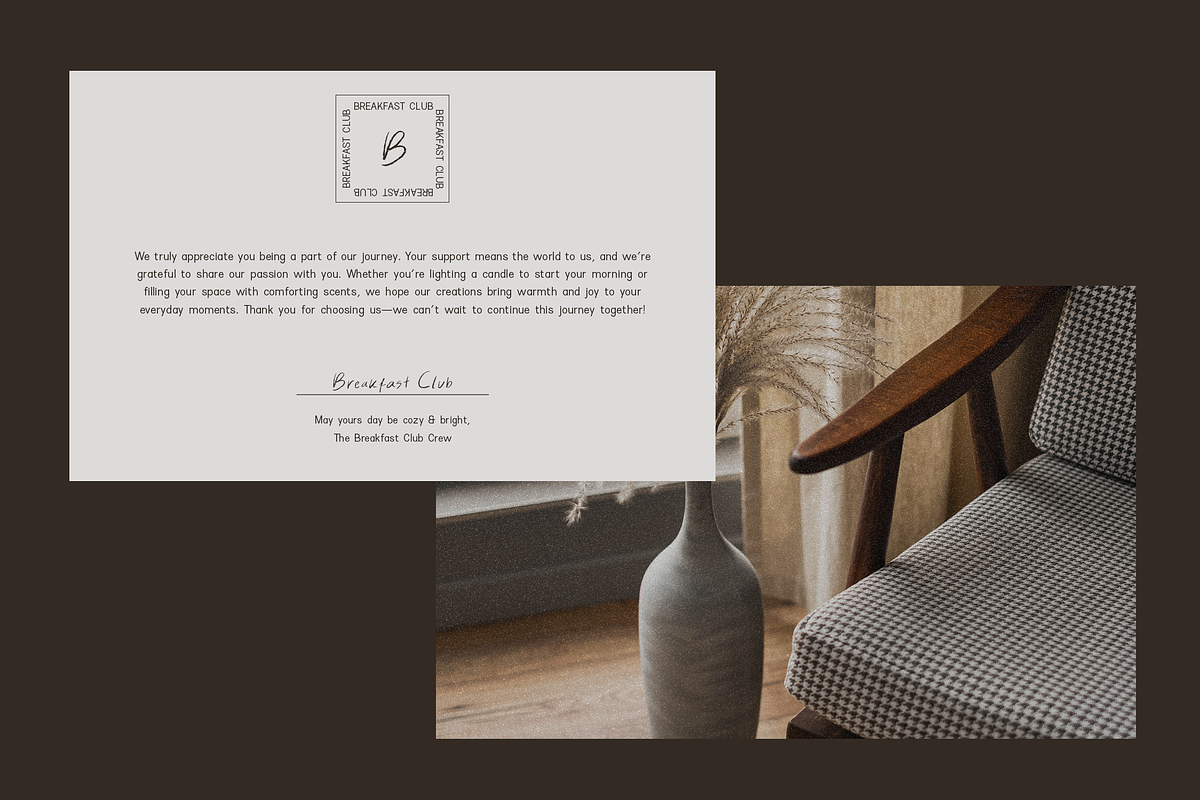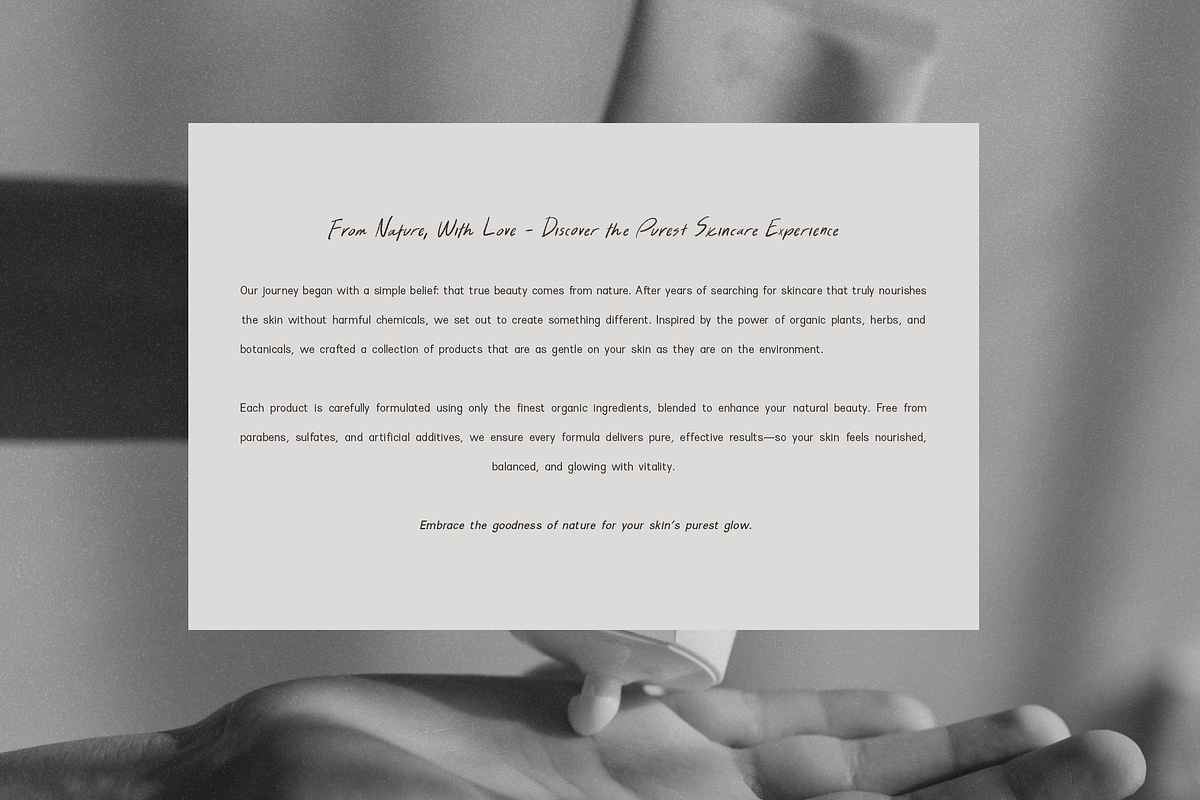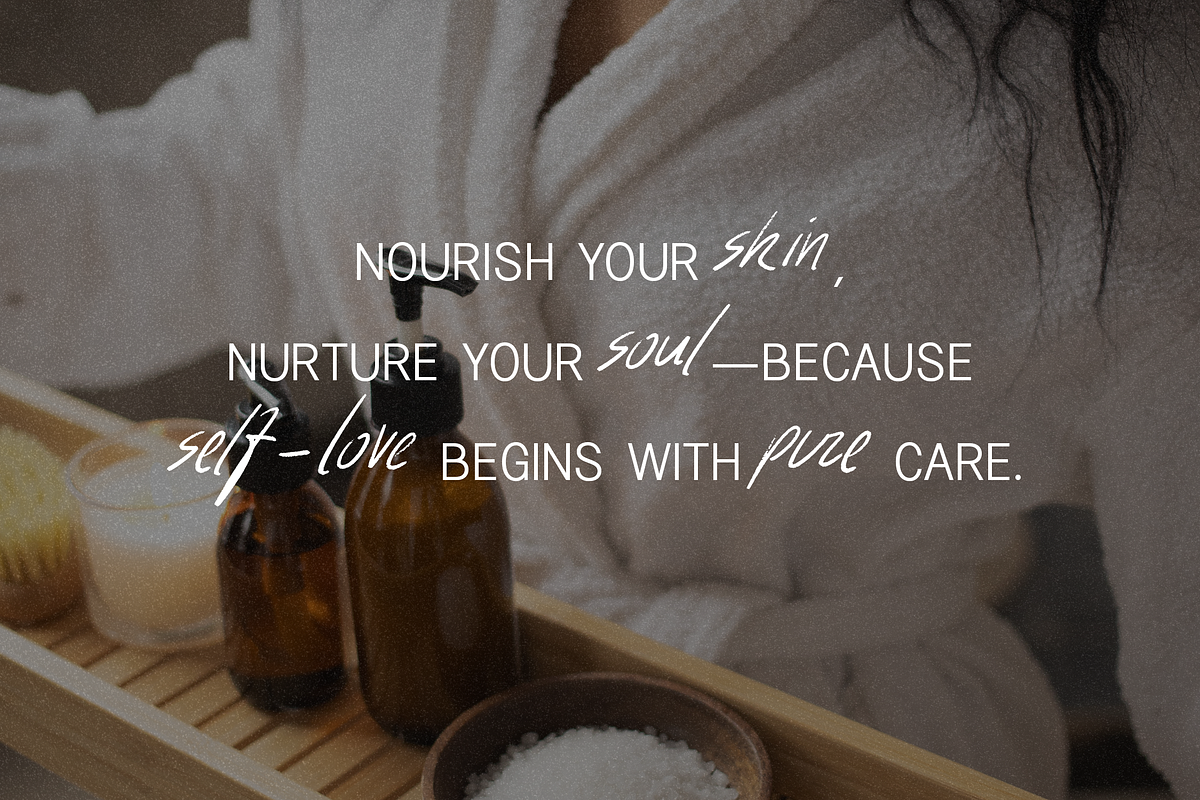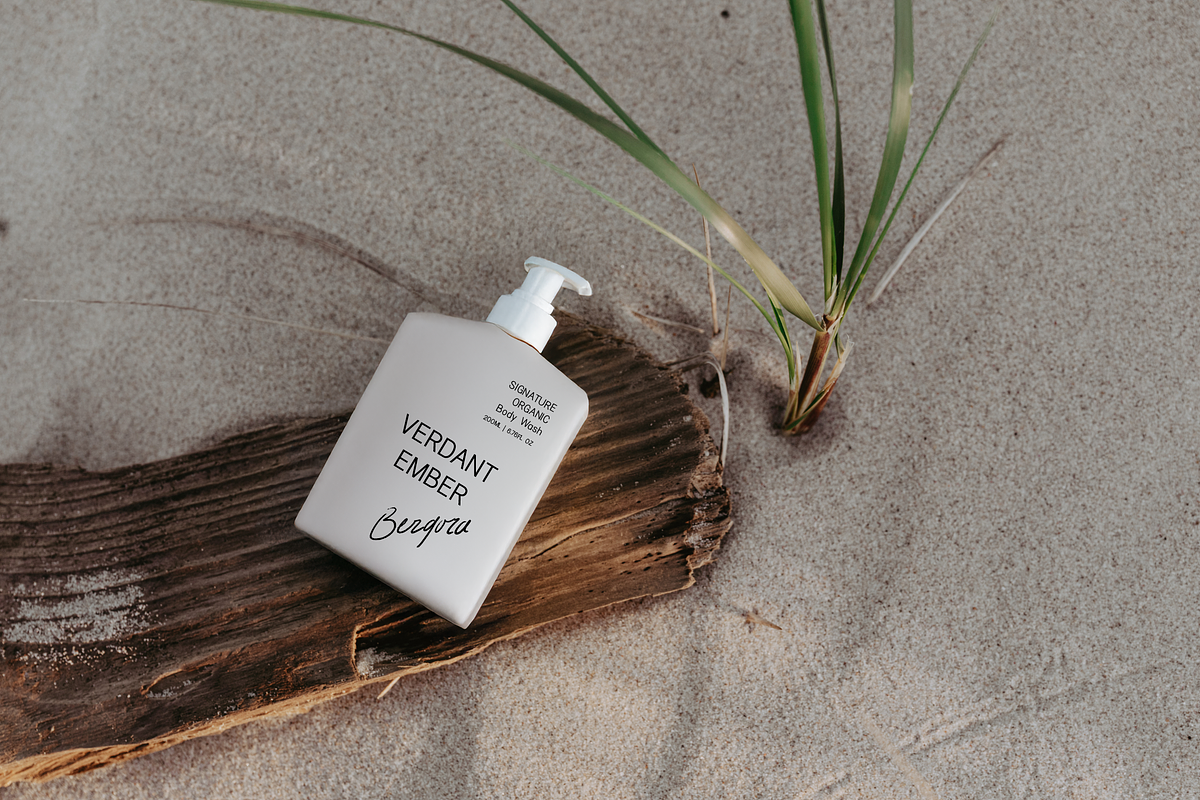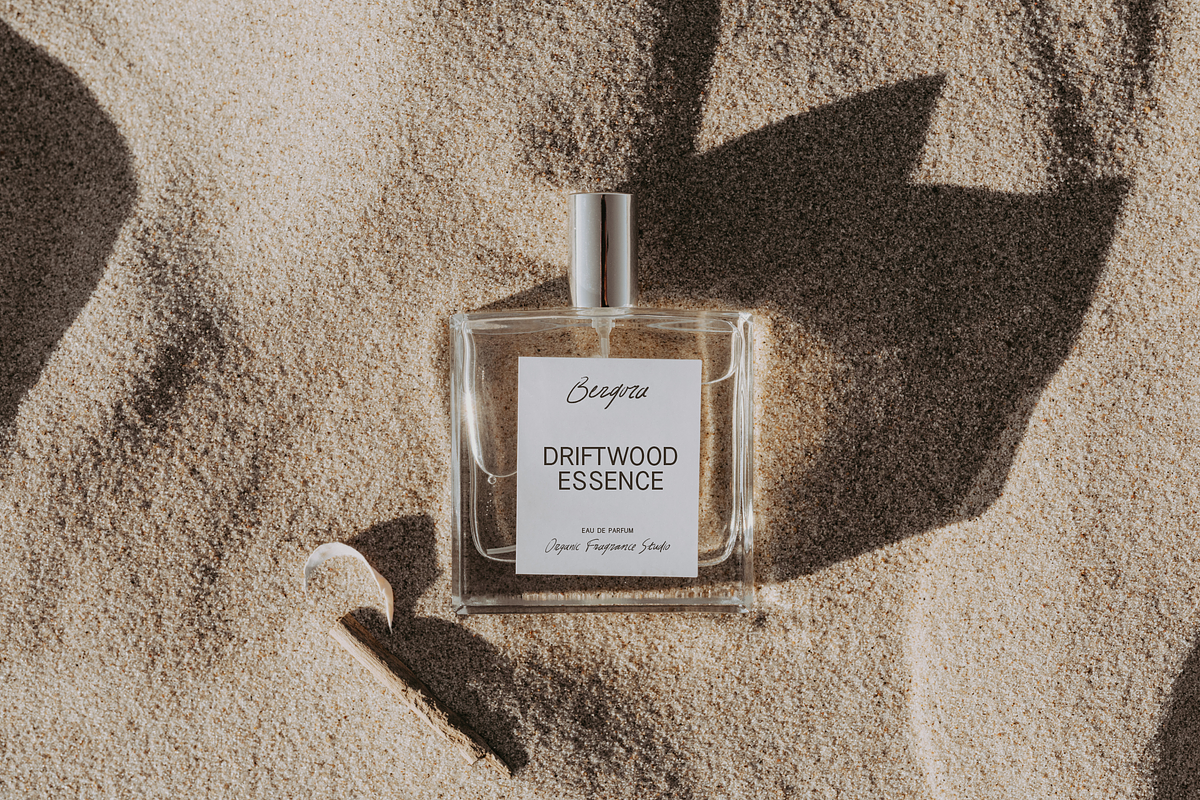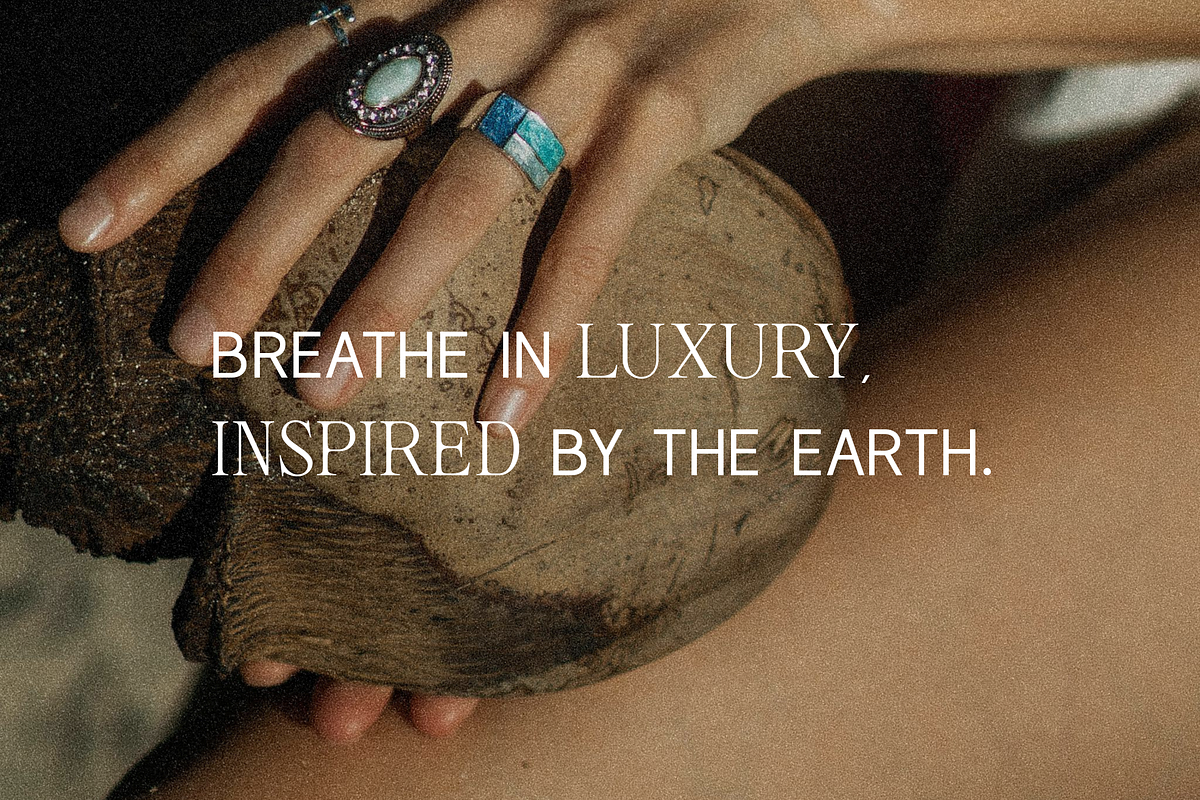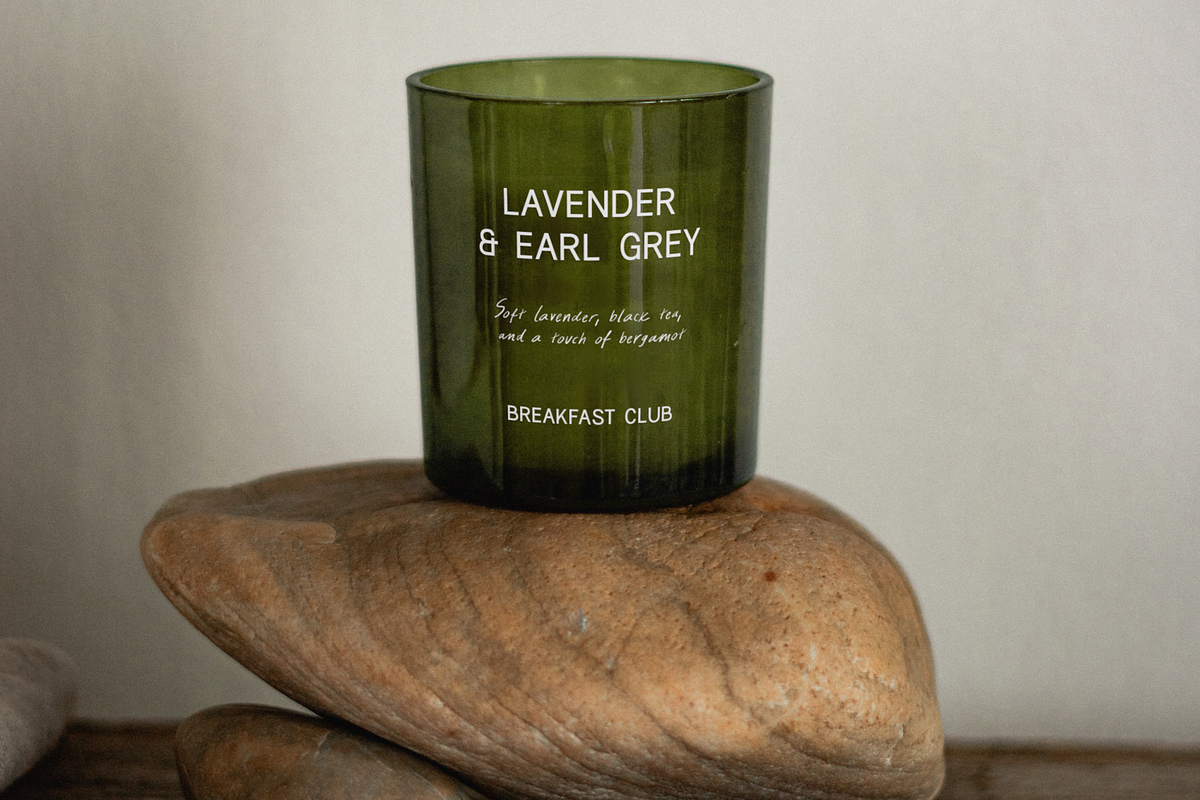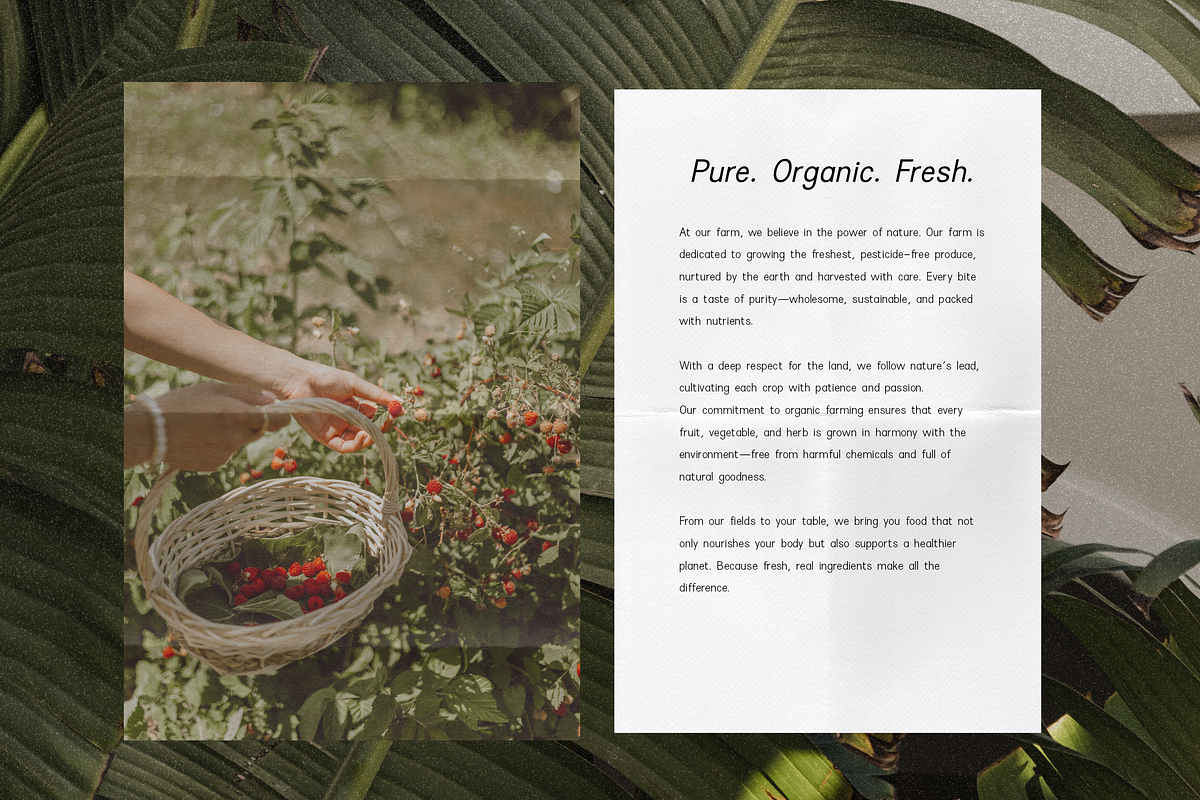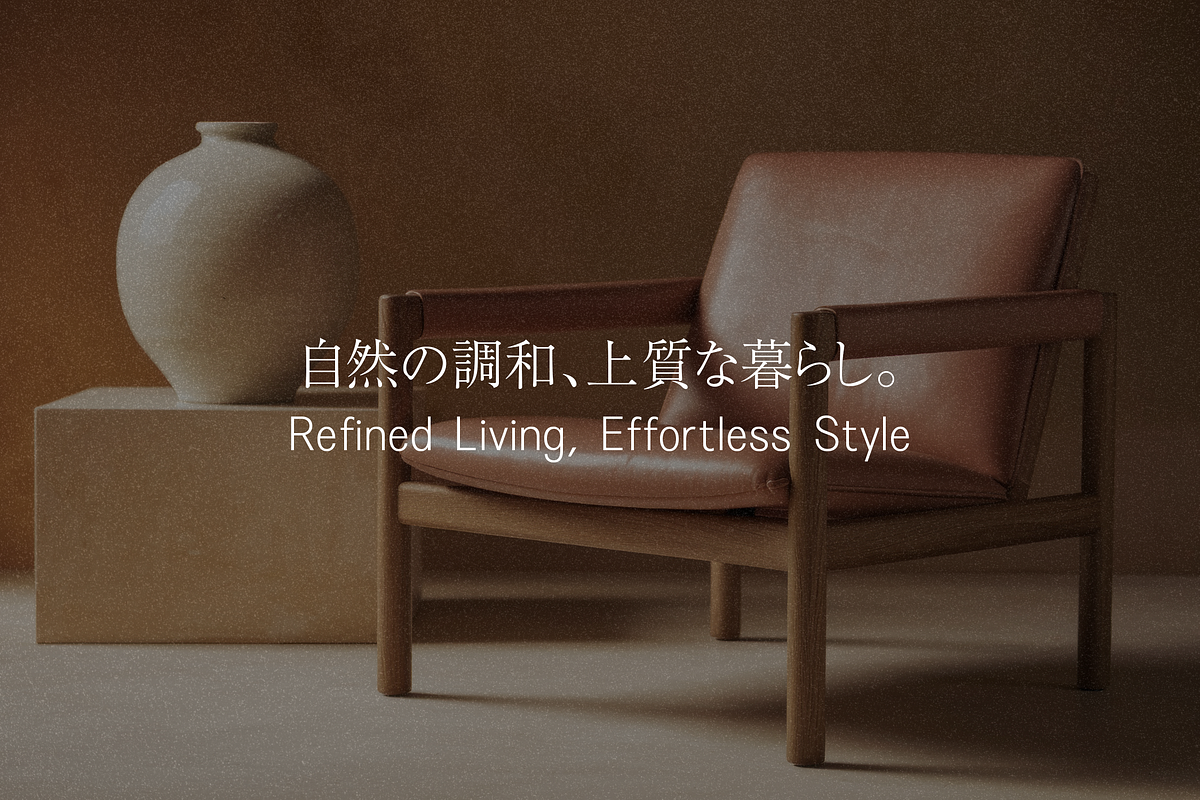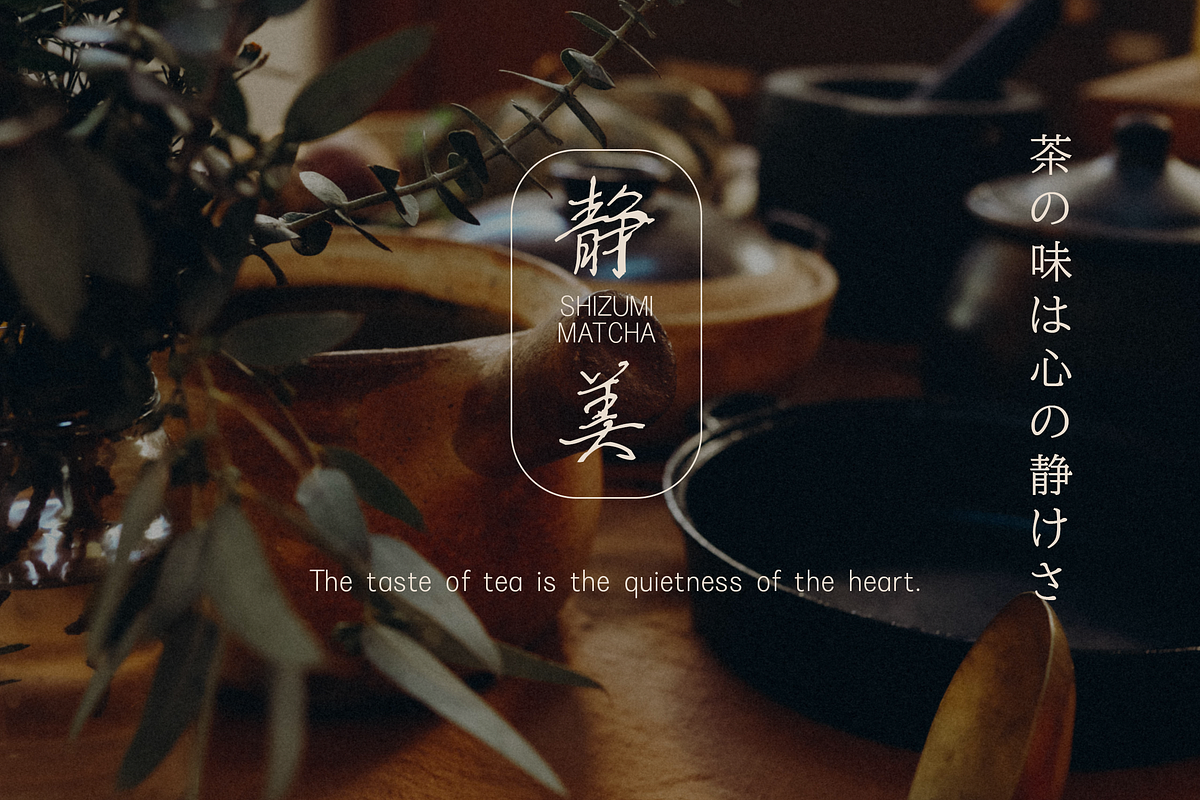
Rivoga Sans | Modern Organic Sans
Rivoga Sans is a modern handwritten-inspired sans serif designed to bring warmth, coziness, and organic flow to your branding, editorial, and lifestyle projects. With its refined yet natural proportions, it strikes the perfect balance between structure and personality.
7 weights (Thin, Light, Regular, Semi Bold, Bold, Extra Bold, Black) + matching italics
Perfect for logos, branding, and elegant editorial layouts
Discretionary Ligatures & multilingual support
Pairs beautifully with serif and script fonts
Whether you're designing for luxury brands, lifestyle blogs, or minimalist projects, Rivoga Sans will bring effortless sophistication and warmth to your typography.